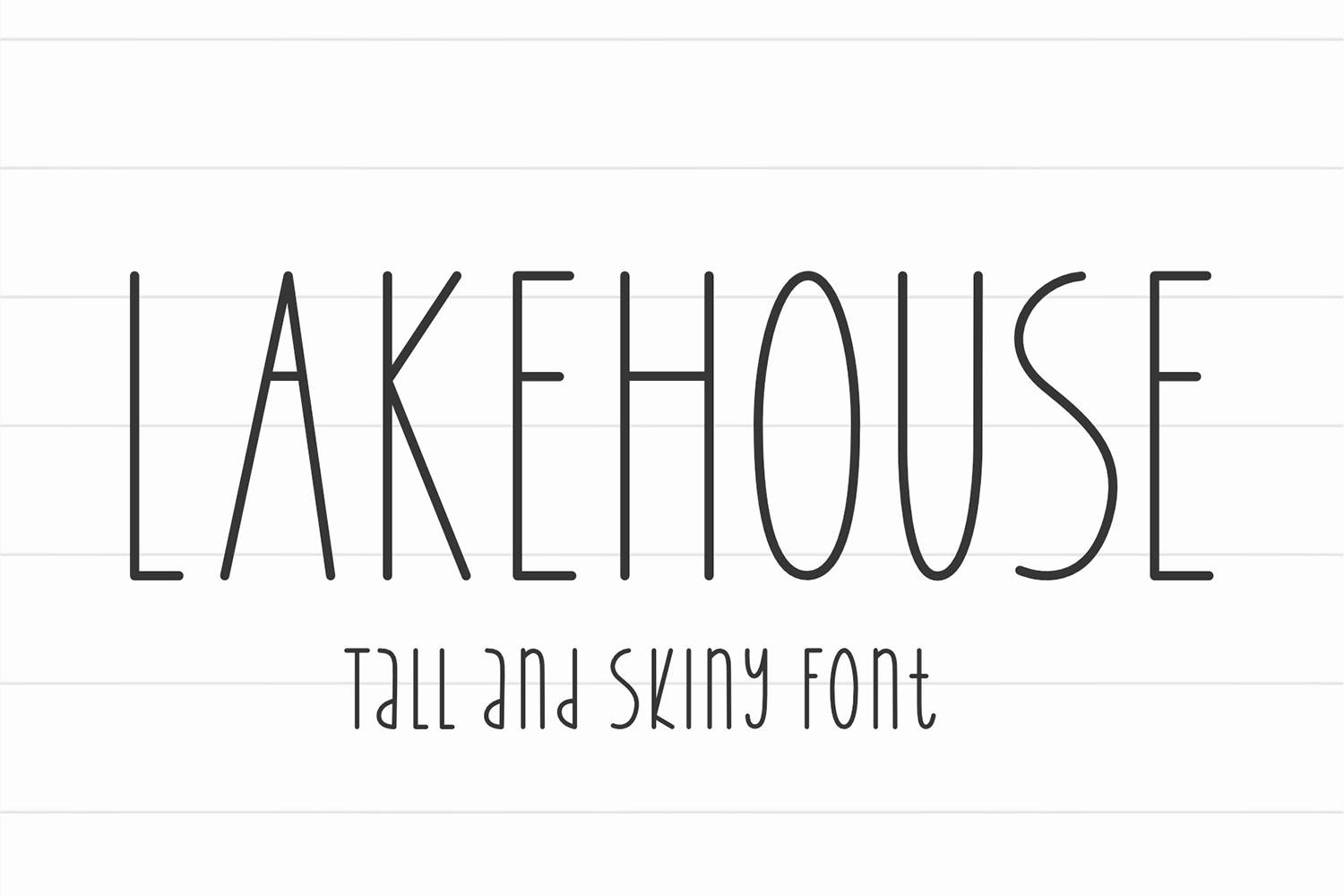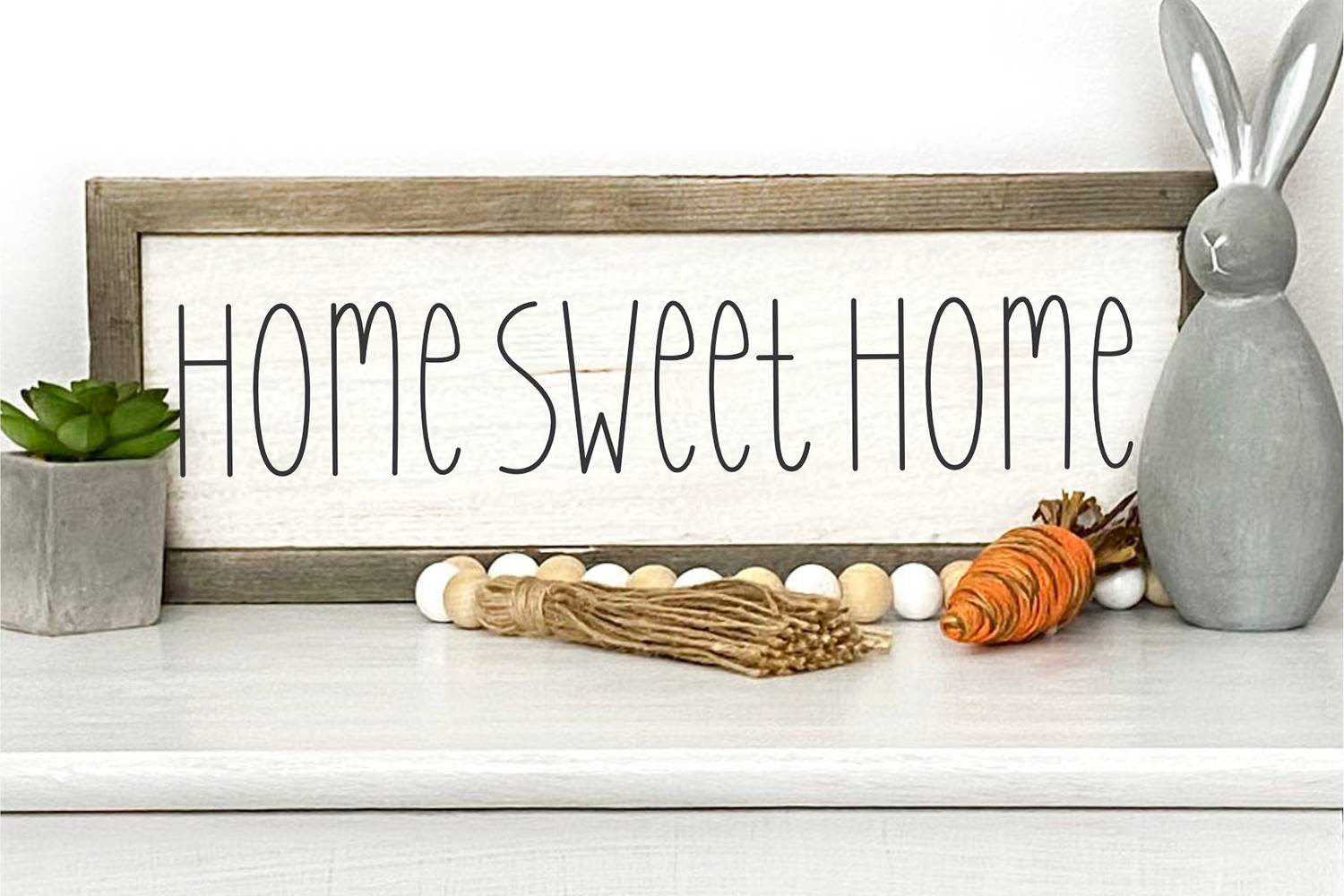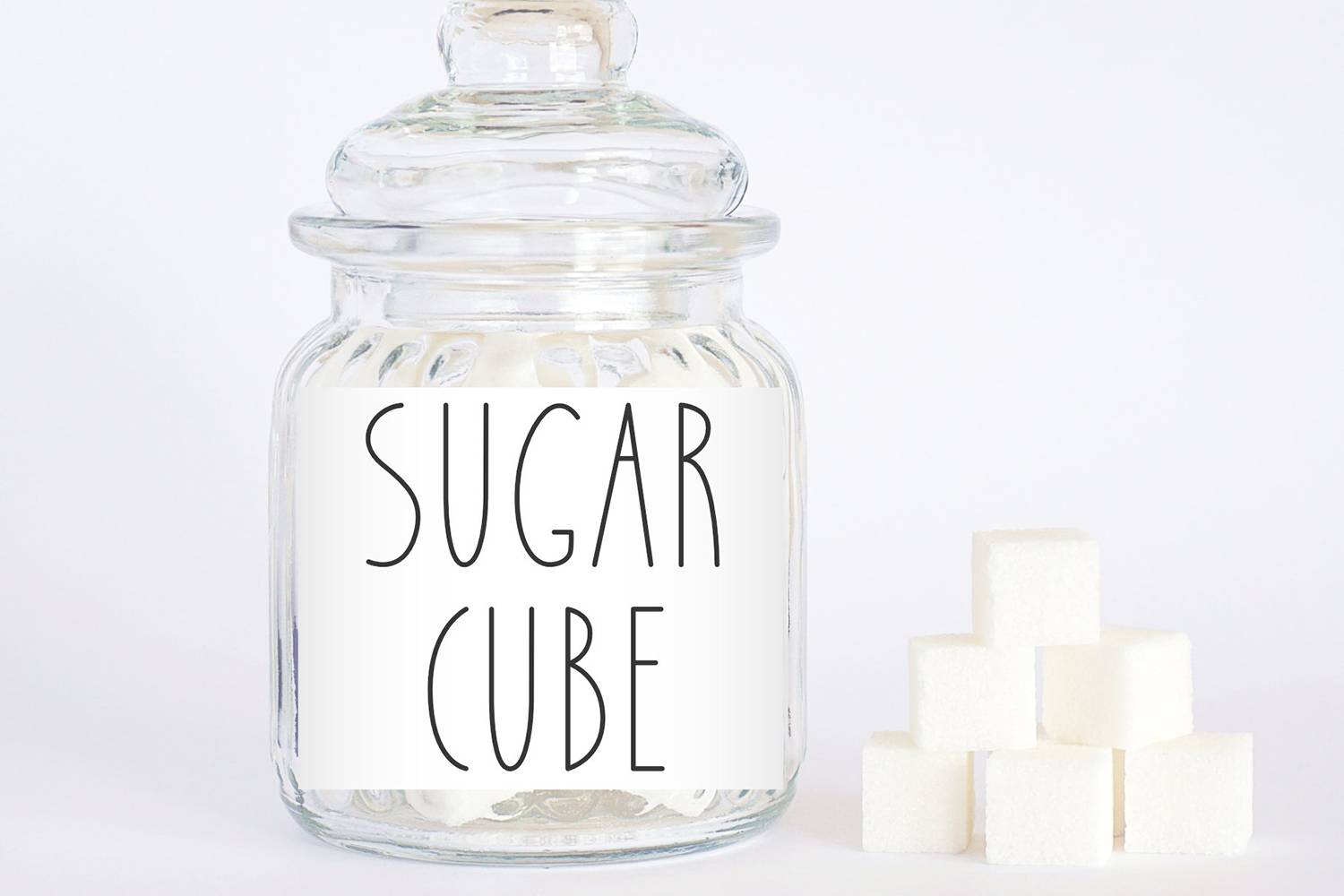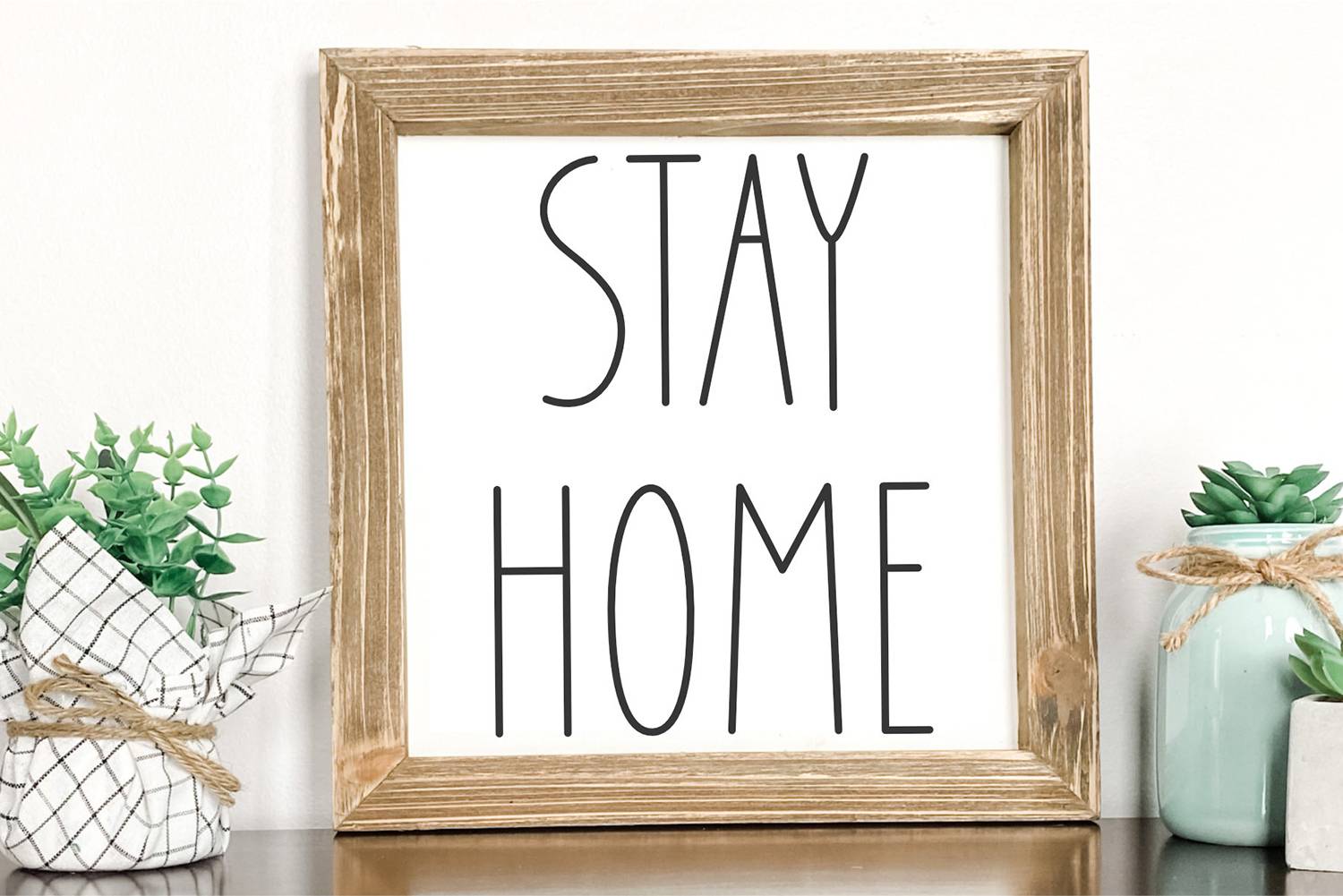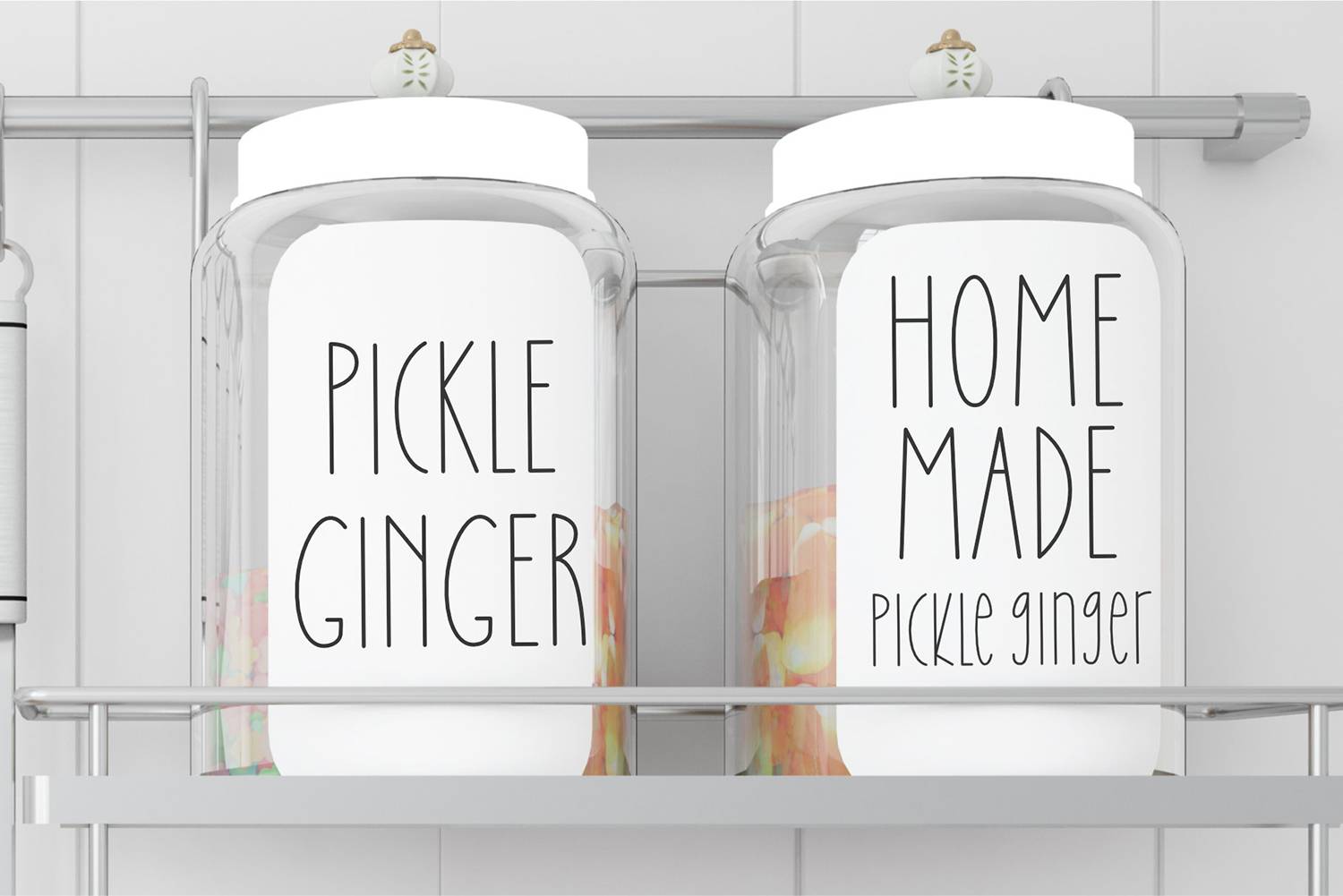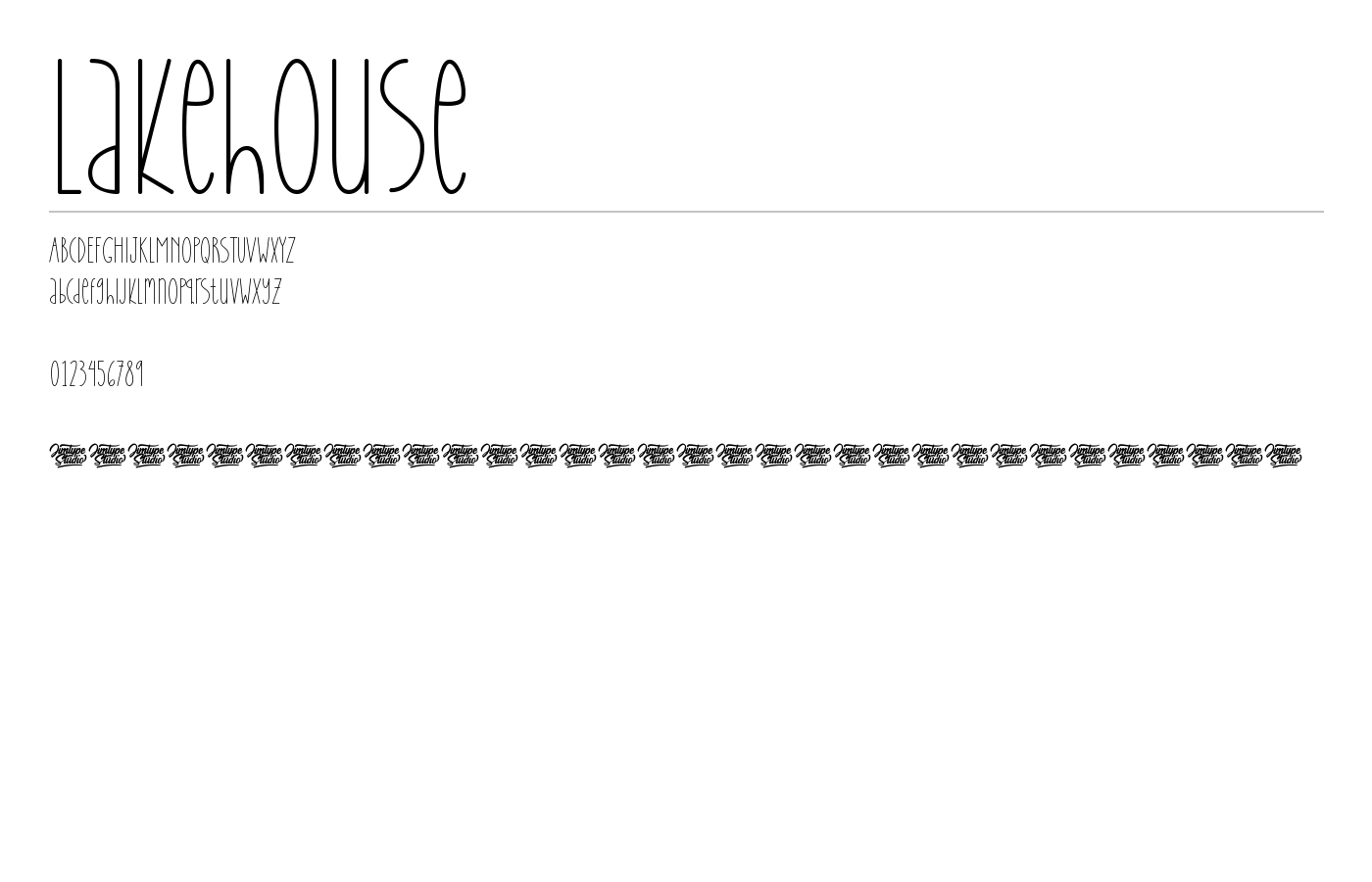
Lakehouse is a slender, tall sans serif font that exudes a playful yet elegant charm. Its narrow letterforms with consistent thin strokes and slight curvature create a modern, airy feel, making it ideal for creative branding, headlines, and lifestyle-oriented designs. This font works best where a refined but unique touch is needed to convey personality without overwhelming the viewer.
Lakehouse Font
About Lakehouse Font
| Font family | Lakehouse Font |
| Designer | Jimtype Studio |